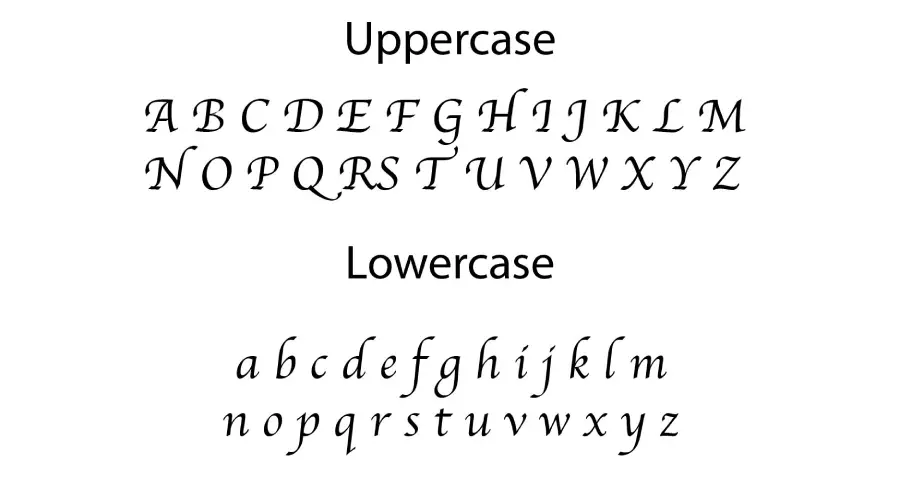
Apple Chancery Font
Apple Chancery font is a script typeface designed by Apple that comes bundled with their operating system. The design is based on theΒ Chancery style of handwriting and features unconnected letters. The family is available in a single style.
As the font has an eye-catching typeface, it is good for almost every section you need.
• Designing Work: Apple Chancery font is compatible with every type of design work. This font is also usable for cards, leaflets, newspapers (online/offline), presentations, webpages, blogs, book covers, social media posts, advertisements, product designs, posters, and many more.
• Headline: For the Headlines and Text, Apple Chancery font is very good to use. You can utilize its couple of formats according to requirements.
• Official work or Documentation: The font has the look to use in the official work and documentation.
• Logos: You can design your logos with it.
• Websites: I have seen various websites use this font.
Is there any font similar to Apple Chancery in Google Fonts?
Ans: Kaushan ScriptΒ is the most similar Google font to Apple Chancery.